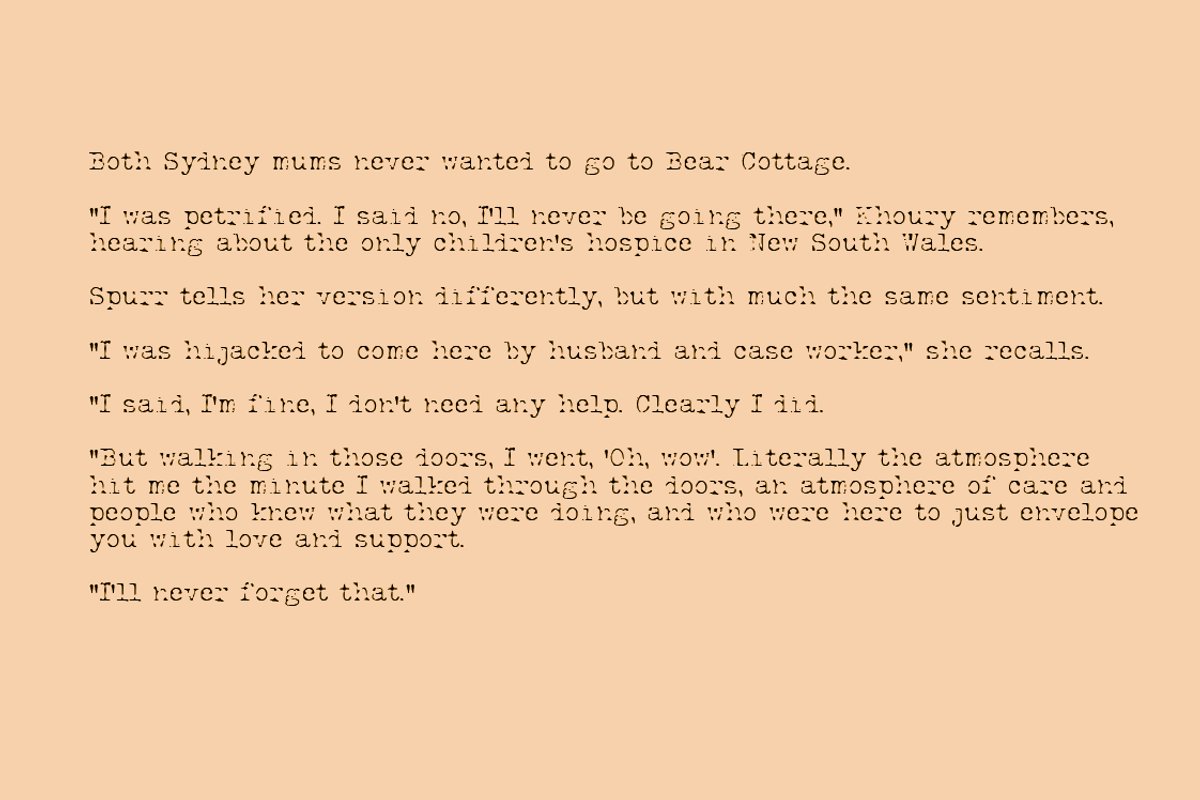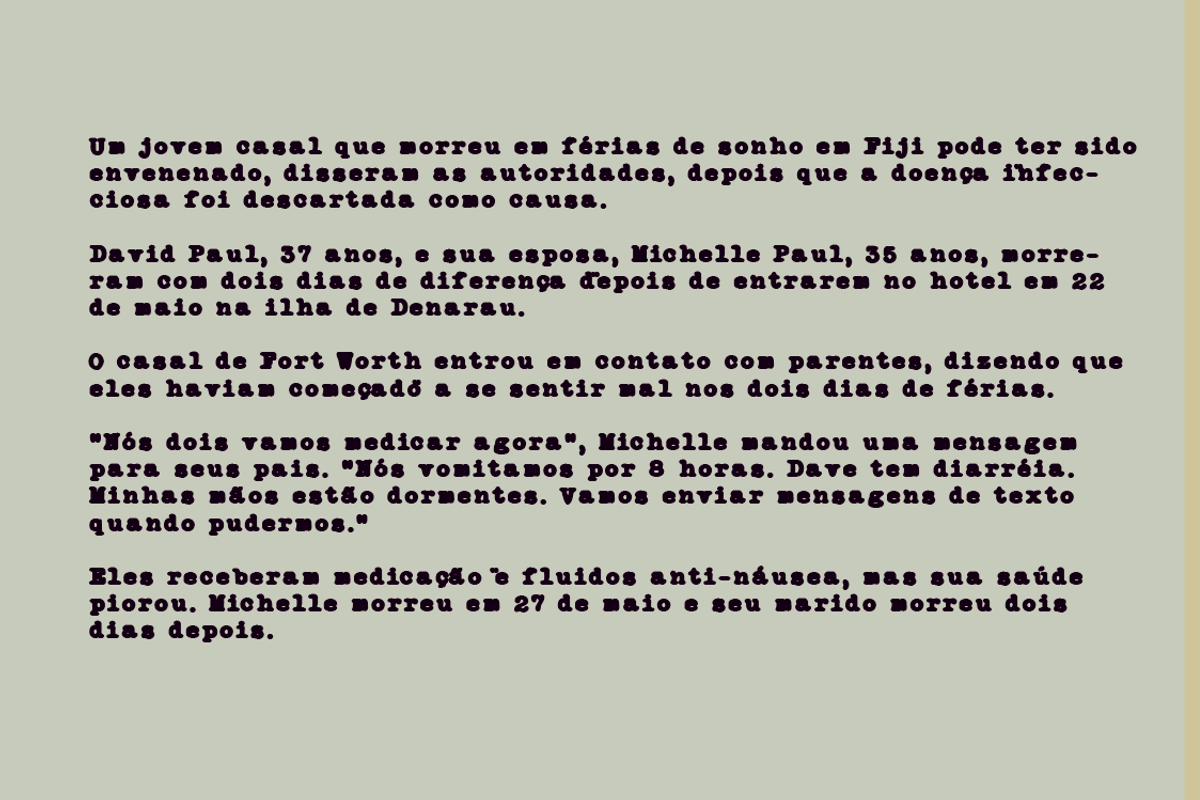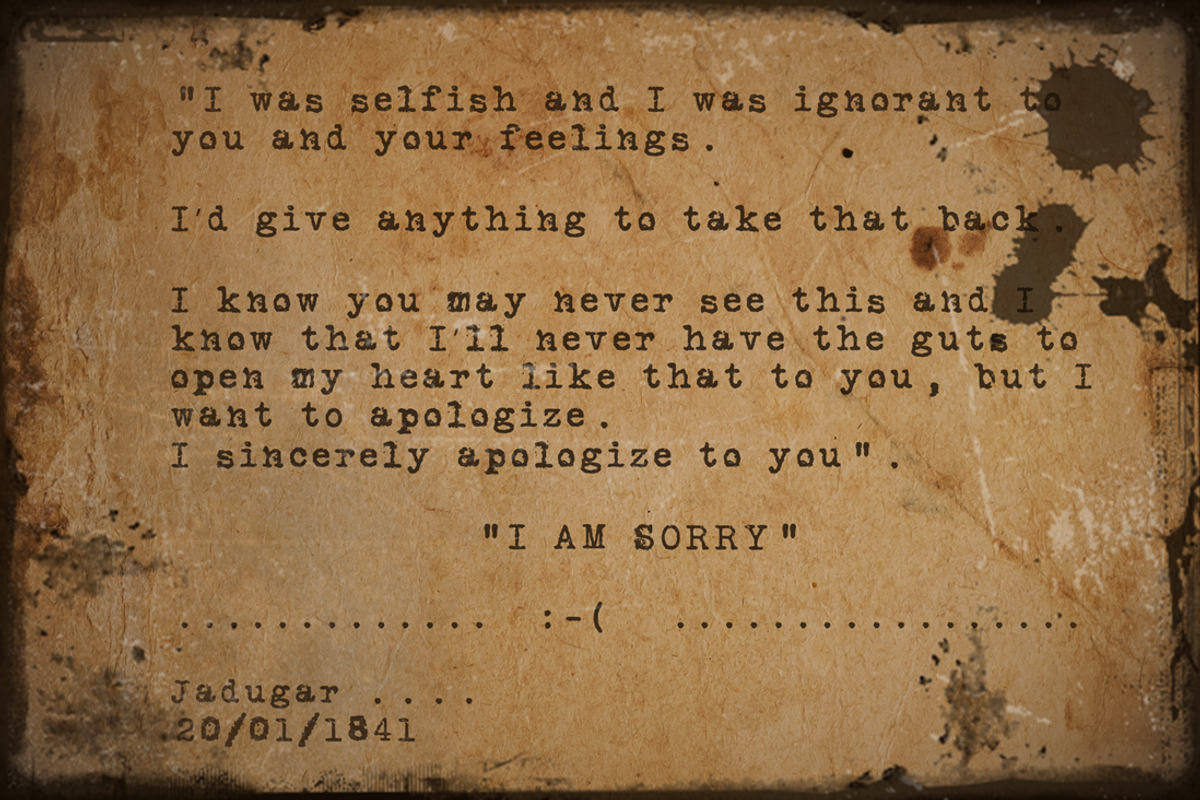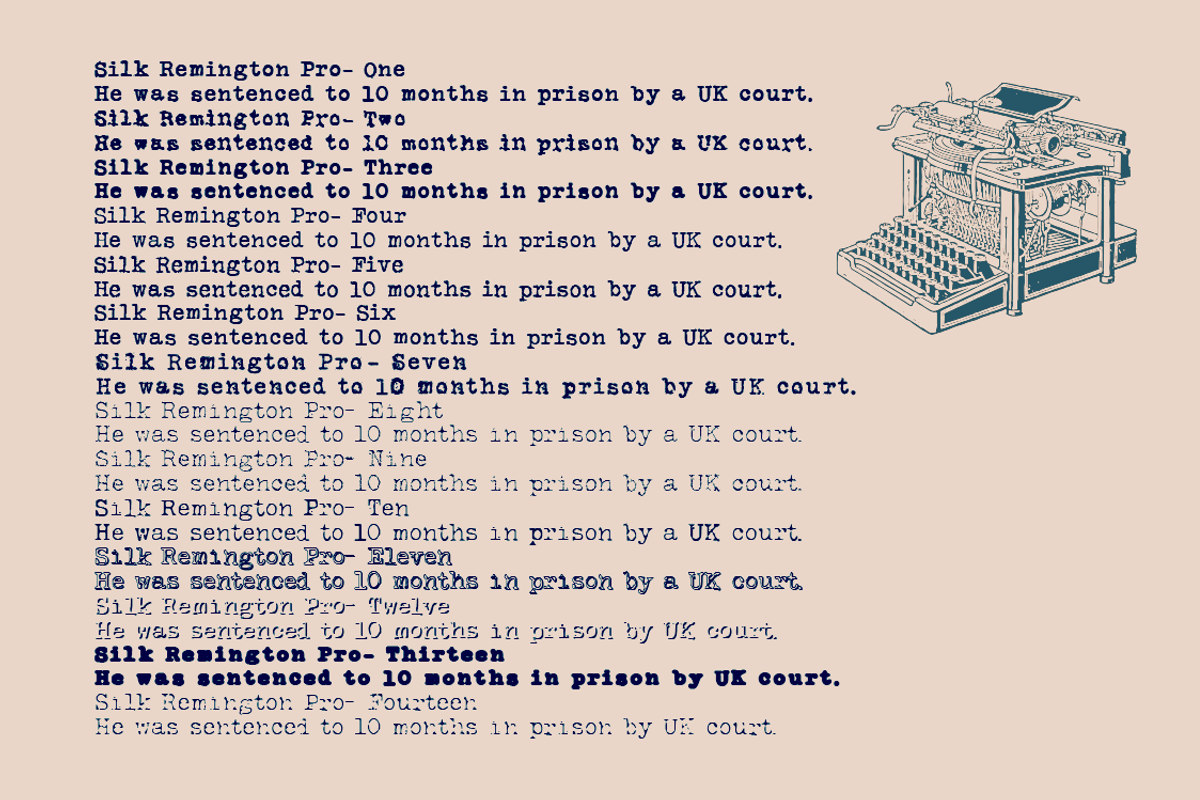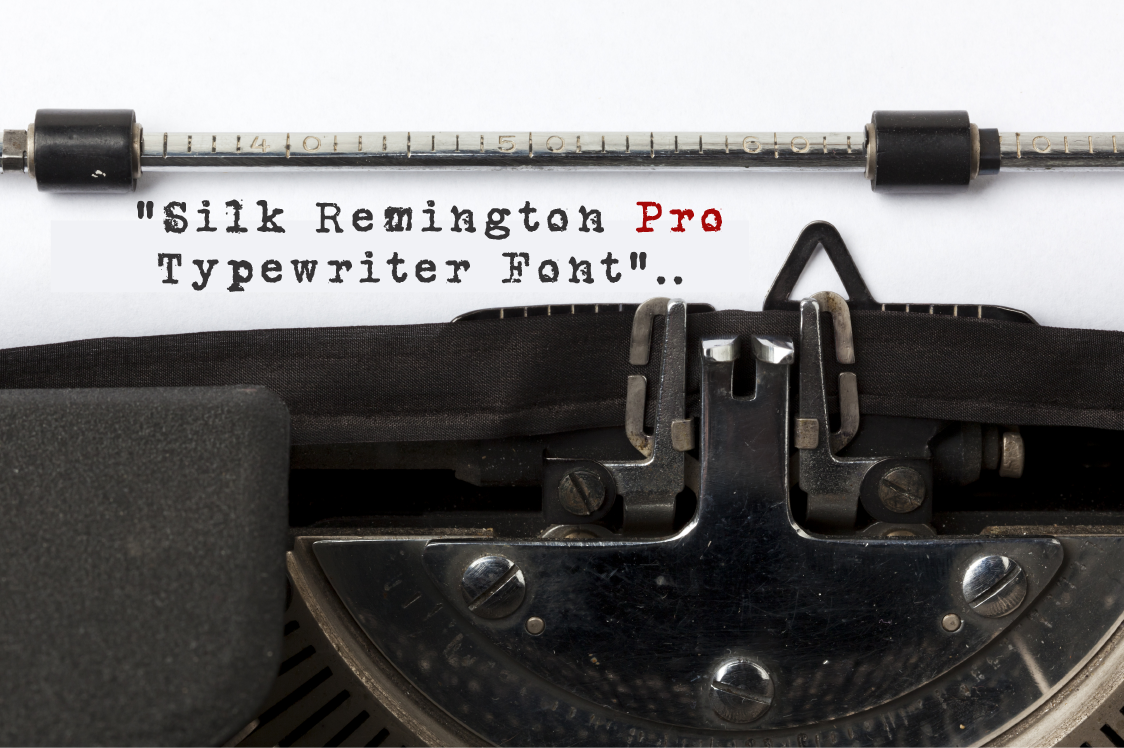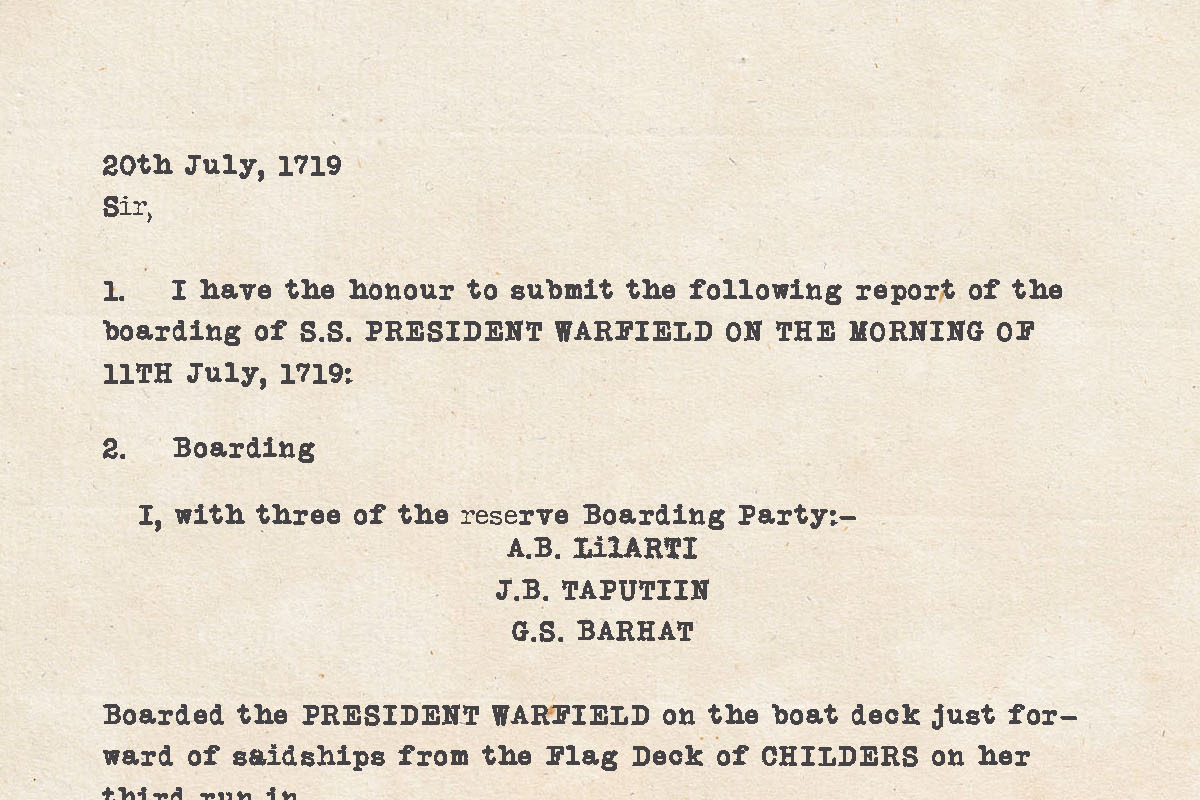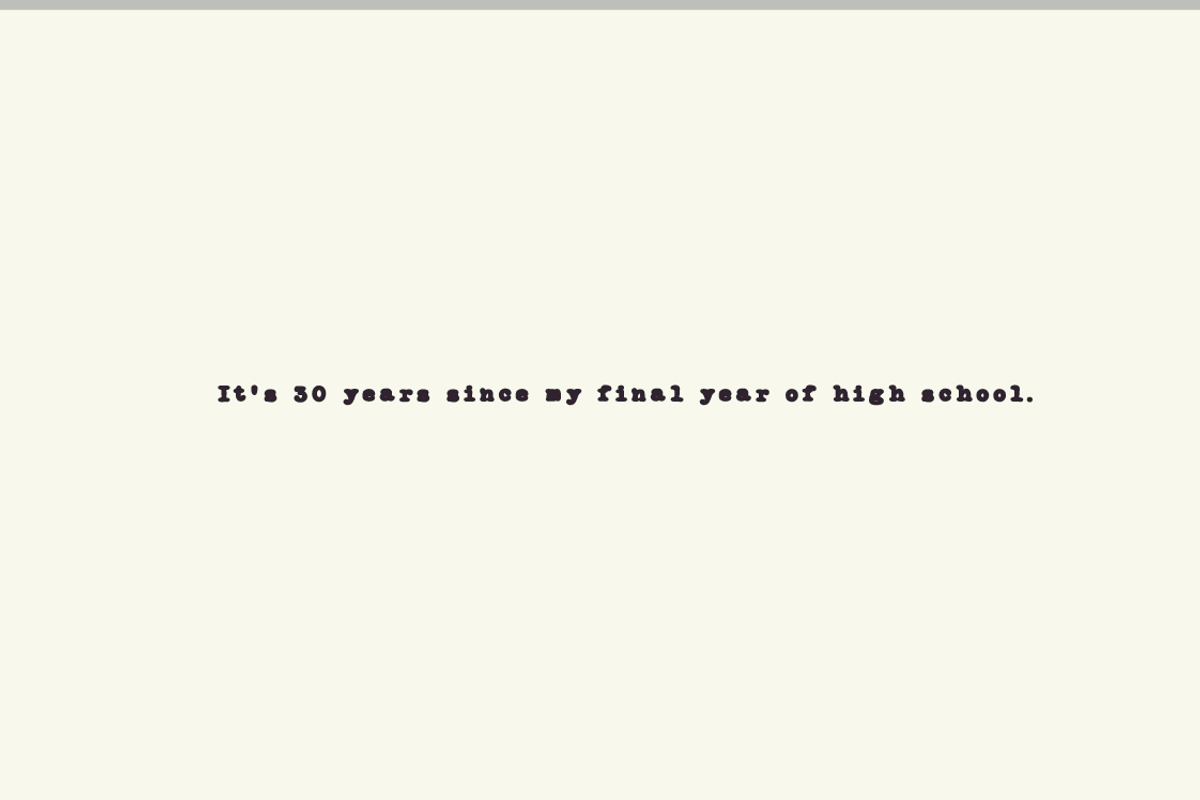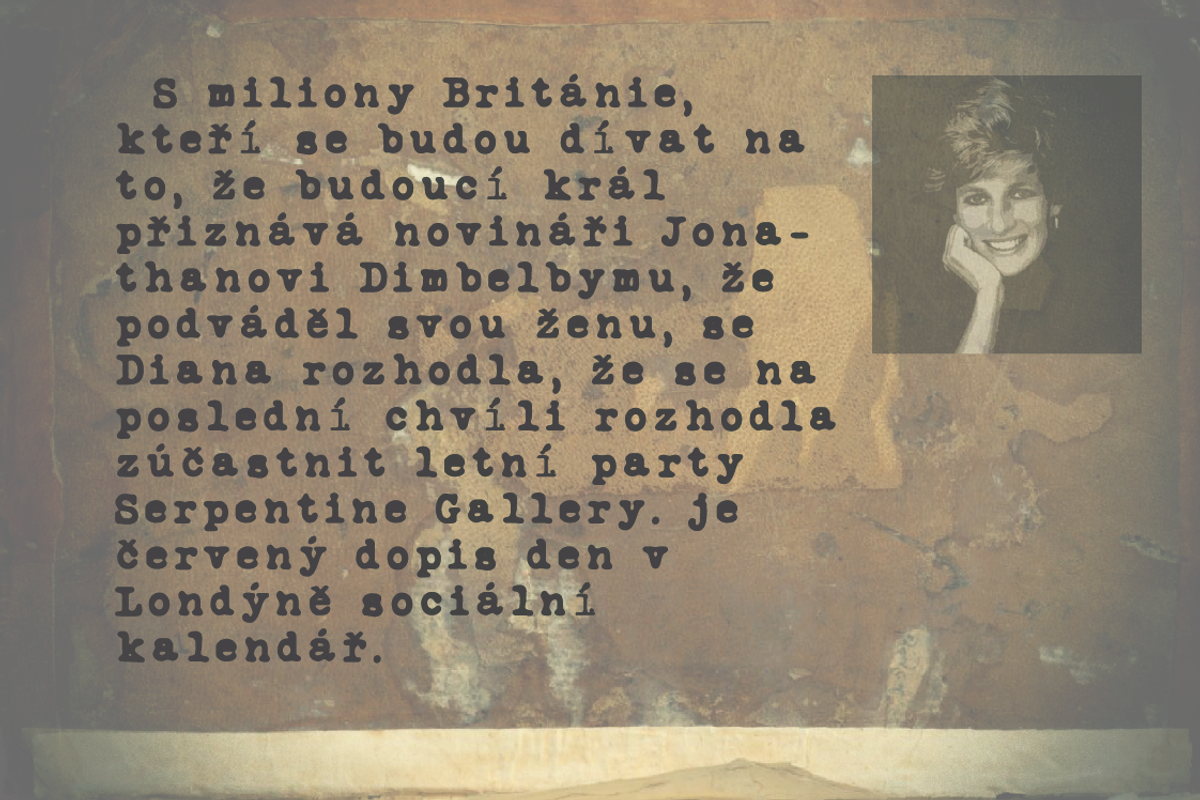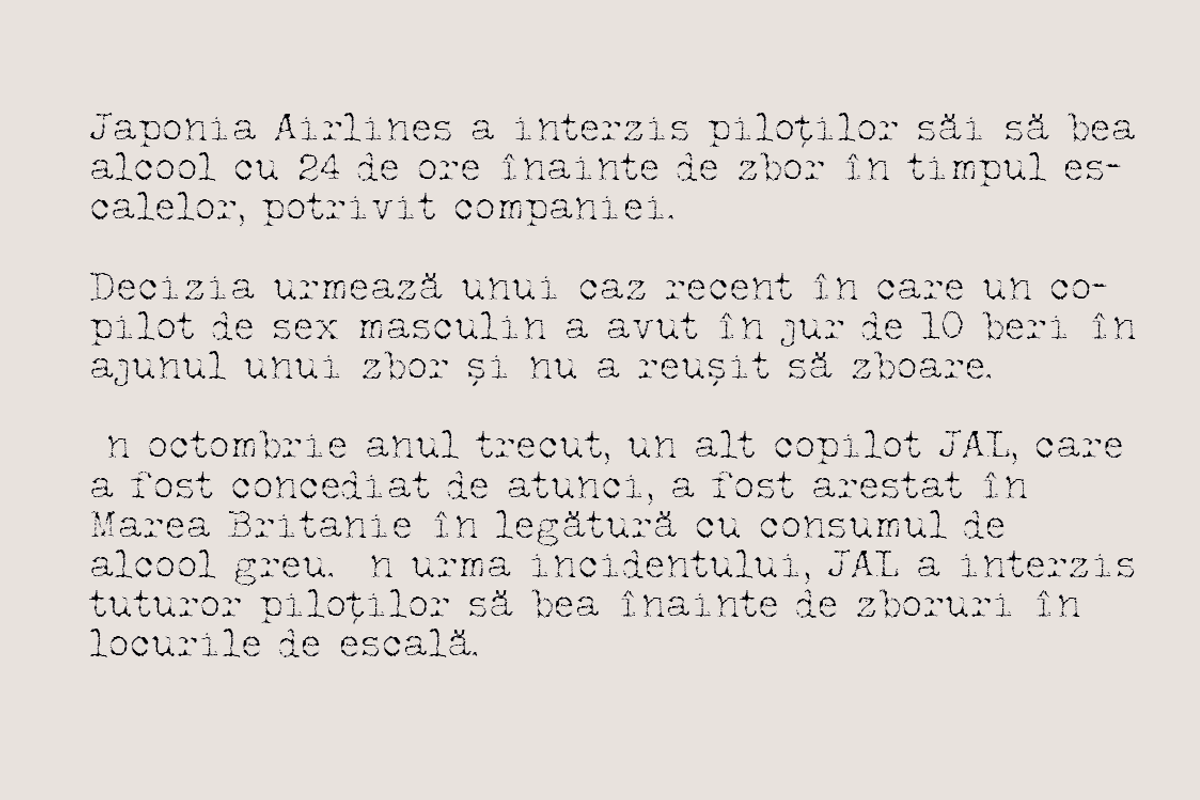
Silk Remington Pro Typewriter Font
" NEW TYPEWRITER FONT "
Silk Remington Pro is Major development from Silk Remington. This is a new typewriter font which is developed by Jadugar Design Studio. This new face is designed to give a real feel of old typewriter.
30JUNE2019- BIG Development. Introducing Silk Remington Pro. That support major languages NOW!. Also I have added more styles and now you can enjoy 14 different styles.
I love this font! I use it frequently when I want courier type font but something with more mood and edge. I have to say it's a "go-to" font for me. Thank you for making it!
Be careful before buying, it has no acute accents or diacritic marks for all languages. Ten cuidado antes de comprar, esta tipografía no tiene tildes ni signos diacríticos para todos los idiomas. No es válida para español, francés, etc.